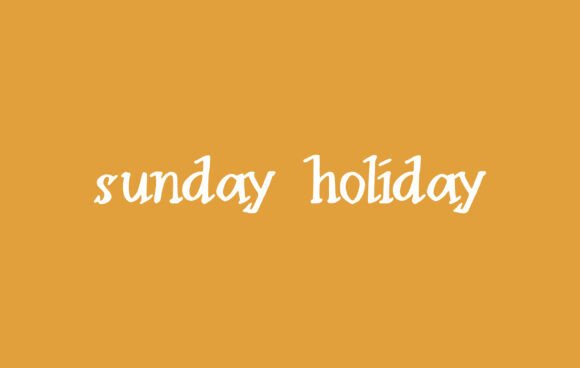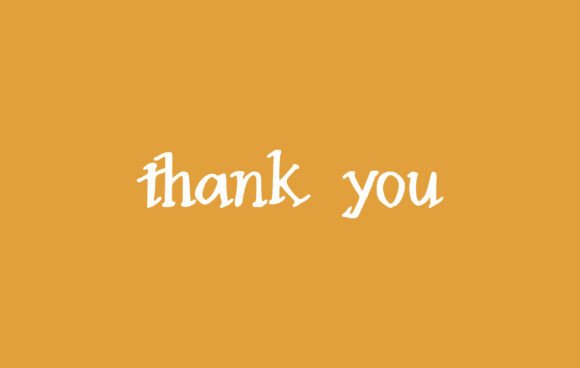
Goblin Shade Font: Elevate Your Designs with a Romantic Touch
In the world of typography, a well-crafted font can make all the difference in bringing your creative ideas to life. Introducing the Goblin Shade font, an authentic handwritten font that exudes a romantic touch, perfect for designers and crafters looking to add a personal and elegant feel to their projects.
What Makes Goblin Shade Font Stand Out?
Goblin Shade font is expertly designed to capture the hearts of designers and crafters alike. Its unique blend of elegance and playfulness makes it an excellent choice for a wide range of design applications. Here are some key features that set Goblin Shade font apart:
- Authentic Handwritten Style: Goblin Shade font boasts an authentic handwritten style that adds a personal touch to any design. Its organic feel makes it perfect for creating unique and eye-catching content.
- Romantic Touch: The font’s romantic undertones evoke feelings of warmth and sophistication, making it ideal for designs that require a touch of elegance.
- Legibility and Versatility: Goblin Shade font is not only beautiful but also highly legible, making it suitable for use as both title and body text. Its versatility allows it to be used in various design contexts, from magazine headlines to social media graphics.
Goblin Shade font is an incredibly versatile typeface that can be used in a multitude of design applications. Here are some ideas to get you started:
- Magazine Headlines: Add a touch of sophistication to your magazine headlines with Goblin Shade font. Its elegant style is sure to grab the attention of your readers.
- Social Media Graphics: Elevate your social media presence with stunning graphics created using Goblin Shade font. Its playful yet refined style is perfect for creating engaging content.
- Branding: Establish a strong brand identity with Goblin Shade font. Its unique style will help your brand stand out and leave a lasting impression on your audience.
- Wedding Invitations: Add a romantic touch to your wedding invitations with Goblin Shade font. Its elegant style is sure to set the tone for a memorable and special day.
- Cards and Stationery: Create beautiful cards and stationery with Goblin Shade font. Its playful yet sophisticated style makes it perfect for various occasions.
Why Choose Goblin Shade Font?
In a world where typography plays a crucial role in design, Goblin Shade font stands out as an exceptional choice for designers and crafters. Here are some reasons why you should consider using Goblin Shade font in your next project:
- Unique Style: Goblin Shade font offers a unique and distinctive style that will set your designs apart from the rest.
- Ease of Use: The font is highly legible and easy to use, making it perfect for designers of all skill levels.
- High-Quality Design: Goblin Shade font is expertly designed to provide a high-quality look that will elevate your designs to the next level.
In conclusion, Goblin Shade font is an exceptional handwritten font that offers a romantic touch, making it perfect for designers and crafters looking to add a personal and elegant feel to their projects. Its unique style, legibility, and versatility make it an excellent choice for various design applications. Whether you’re working on magazine headlines, social media graphics, branding, wedding invitations, or cards, Goblin Shade font is sure to elevate your designs to new heights.
So why wait? Discover the creative possibilities with Goblin Shade font and bring your ideas to life with its romantic and authentic handwritten style.